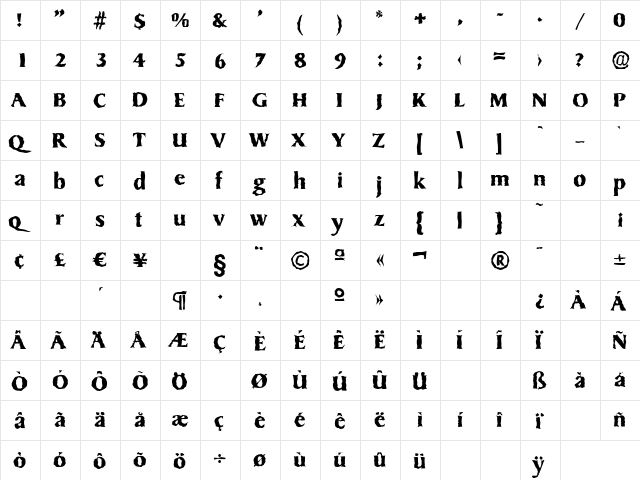
SydneyRandom Bold Font Preview
SydneyRandom Bold
SydneyRandom Bold Font Details
Design Context for SydneyRandom Typeface
SydneyRandom is a composed and adaptable typeface that performs quietly and consistently across a wide range of design contexts. Its bold stroke weight gives it real presence on the page.